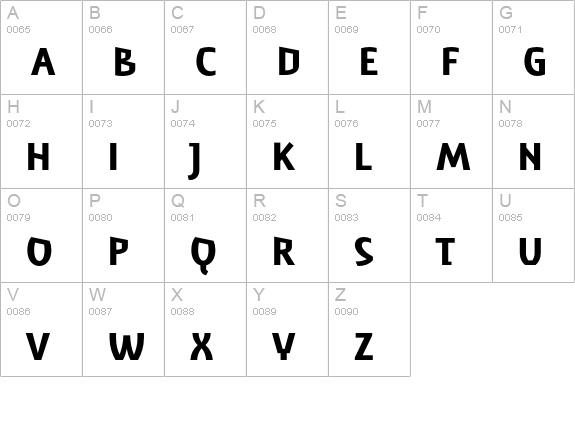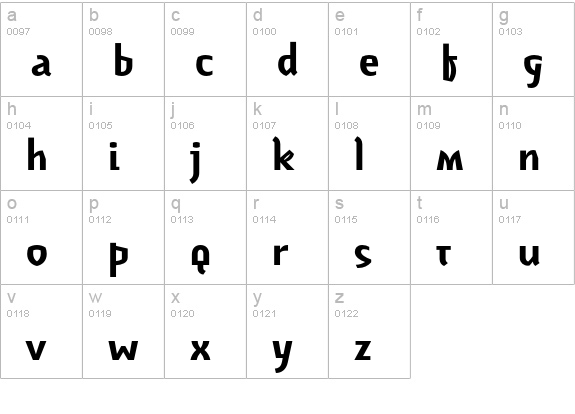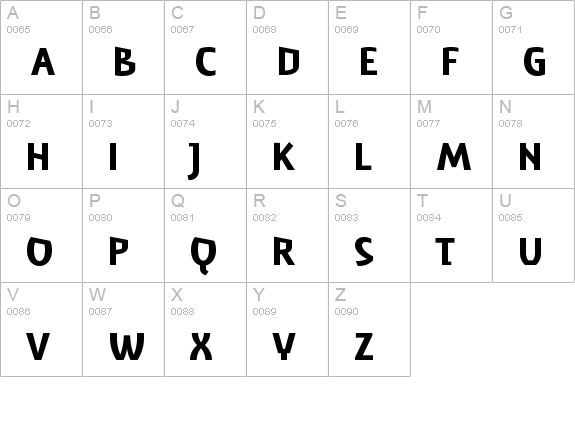
Reality-Heavy Font Details
Reality-Heavy is a heavy, high-impact variant in the Reality typeface family \xE2\x80\x94 well suited to high-impact headlines, posters, and display advertising.
Reality-Heavy font is a bold and robust typeface that exudes strength and power. Its thick and sturdy letterforms make a bold statement, capturing attention and commanding presence. This font is perfect for designs that require a strong and impactful visual impact, such as headlines, logos, posters, and banners. With its carefully crafted details and distinct personality, Reality-Heavy font is sure to make your designs stand out from the crowd. Its clean and sharp edges give it a modern and contemporary feel, while its solidity and weight add a touch of authority and professionalism. What sets Reality-Heavy font apart is not only its striking appearance but also its versatility. It can be used for a wide range of design projects, from corporate branding to editorial layouts, from product packaging to website headers. Its versatility allows it to adapt to different design styles and contexts, making it a valuable asset for any creative project. And the best part? Reality-Heavy font is freely available to download at FontsMarket.com. This means that you can access this exceptional font without any cost, making it a fantastic choice for designers on a budget or those looking to experiment with different typefaces. FontsMarket.com is a reputable and reliable source for high-quality fonts, ensuring that you can download Reality-Heavy font with confidence. So, if you're searching for a bold and impactful font that will make your designs shine, look no further than Reality-Heavy font. Download it today at FontsMarket.com and unleash its power and versatility in your creative projects.